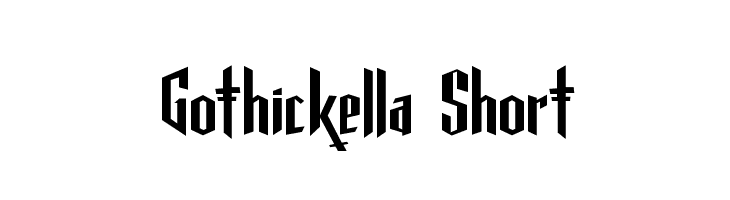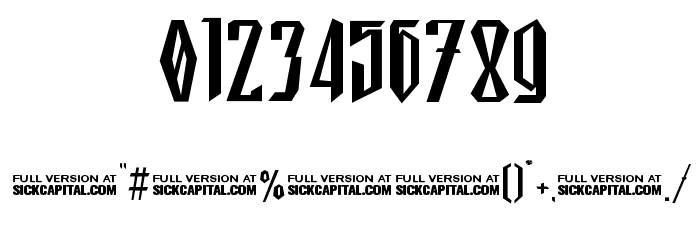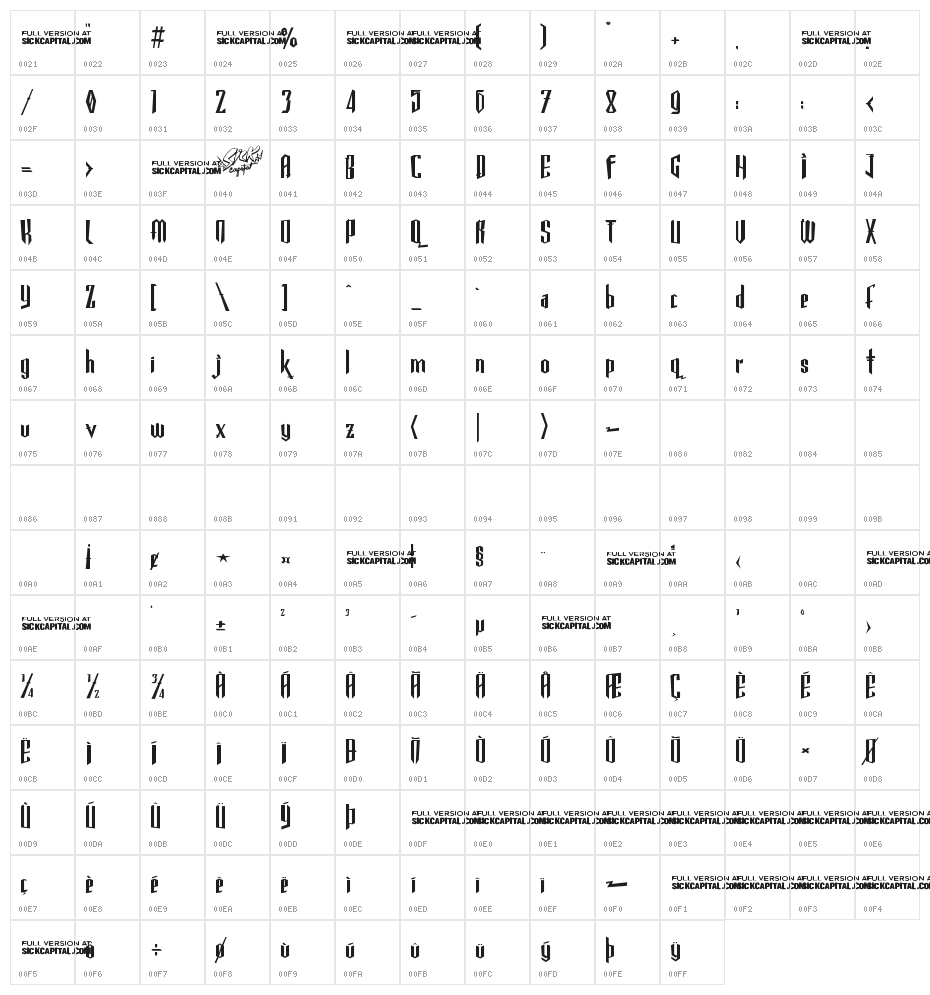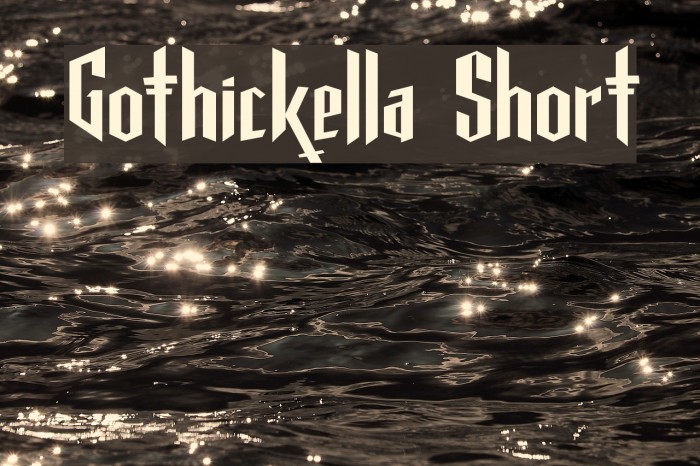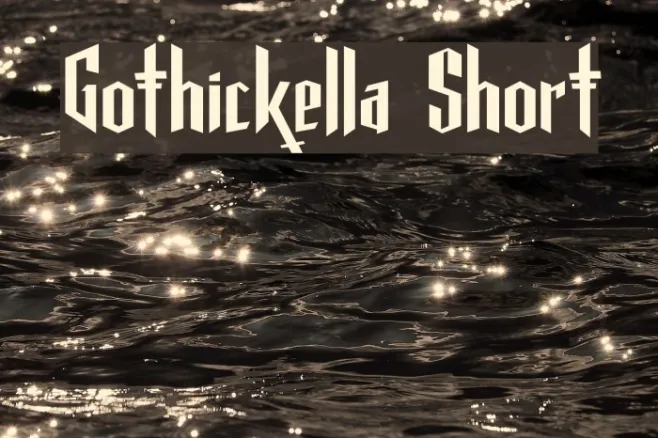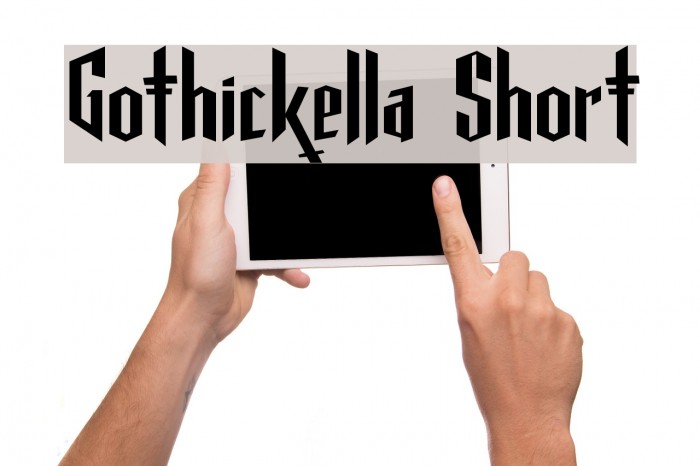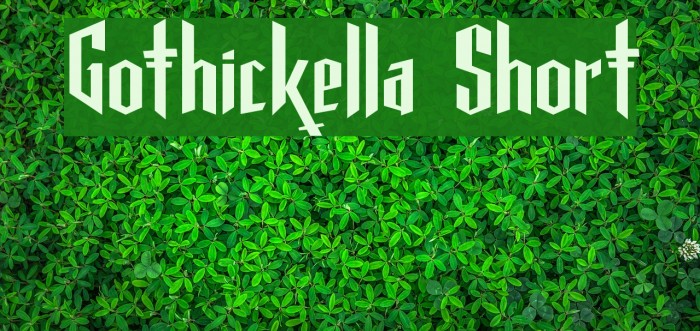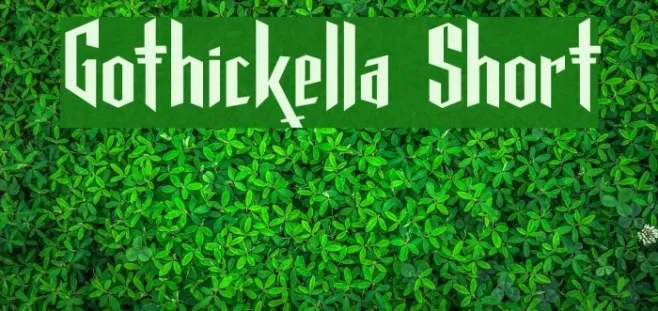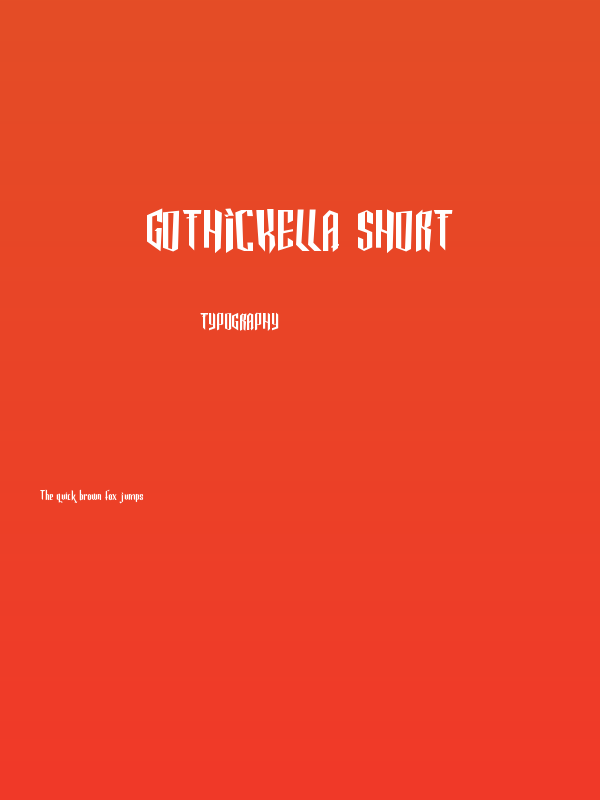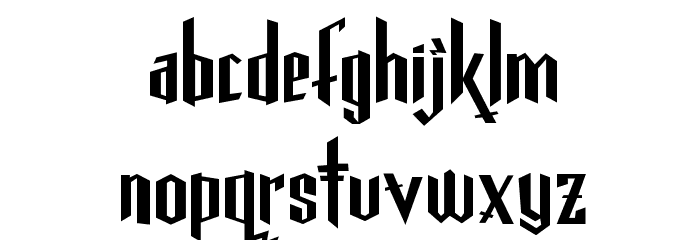
Gothickella Short Font
Gothickella Short Description
This font exhibits a bold and striking design, characterized by sharp, angular lines and a gothic-inspired aesthetic. The uppercase letters are particularly prominent, with exaggerated serifs and a sense of verticality that commands attention. The lowercase letters maintain the same angular style, ensuring consistency throughout the typeface. Numbers and special characters are designed with the same boldness, making them stand out. The overall look is both modern and reminiscent of medieval script, making it suitable for projects that require a dramatic and impactful visual presence.
| Overall Style | Modern Gothic |
| Proposed Projects | Ideal for album covers, posters, branding for edgy or alternative products, and any design needing a bold, gothic touch. |